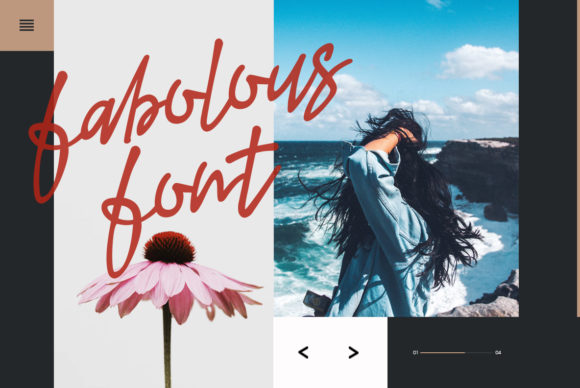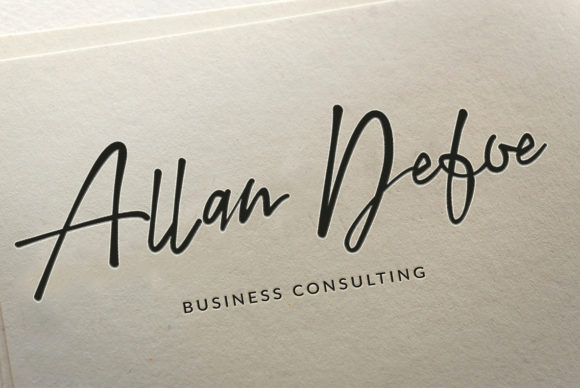
San Andreas Font
db-ku.com - Script & Handwritten -- The San Andreas is a creative handwritten font. It’s perfect for branding logos which need a signature style.